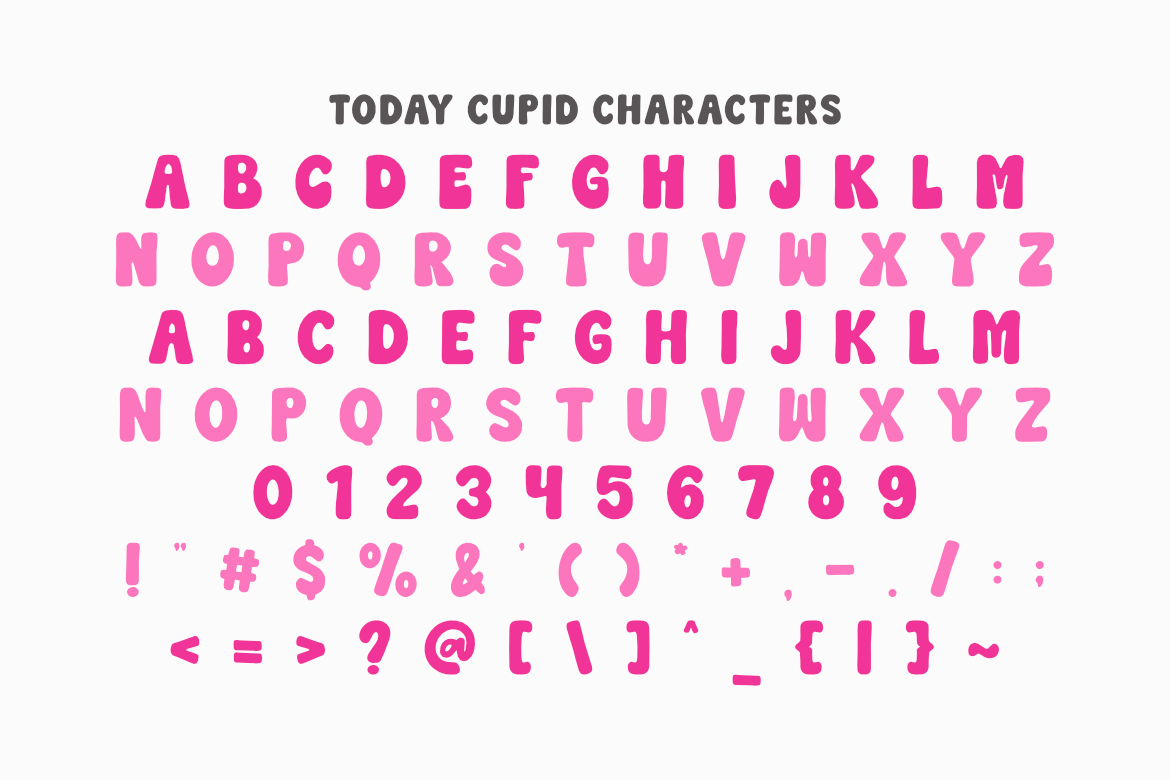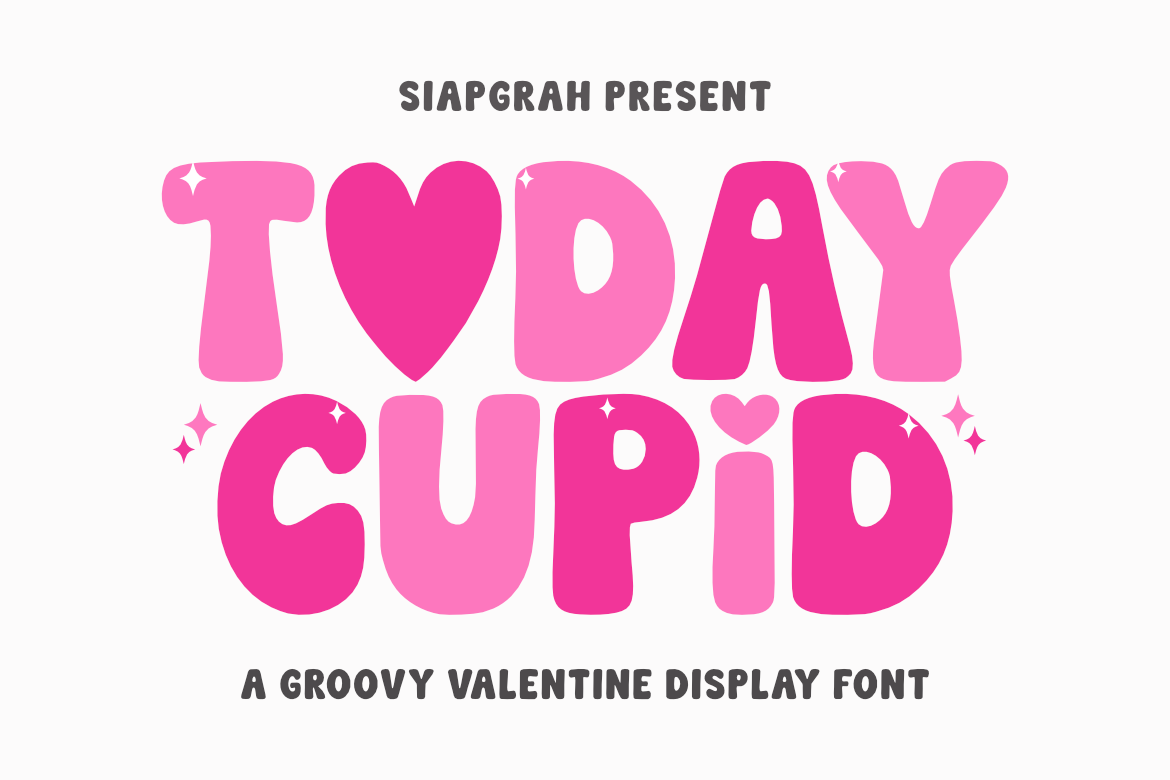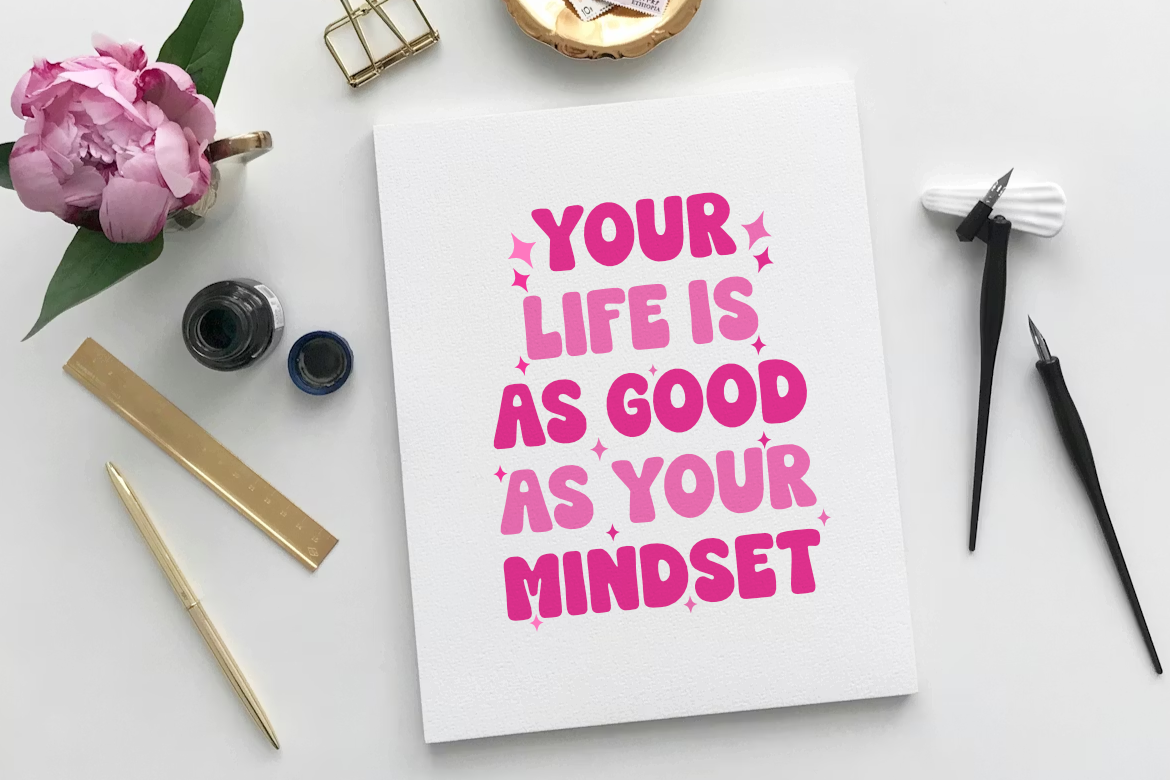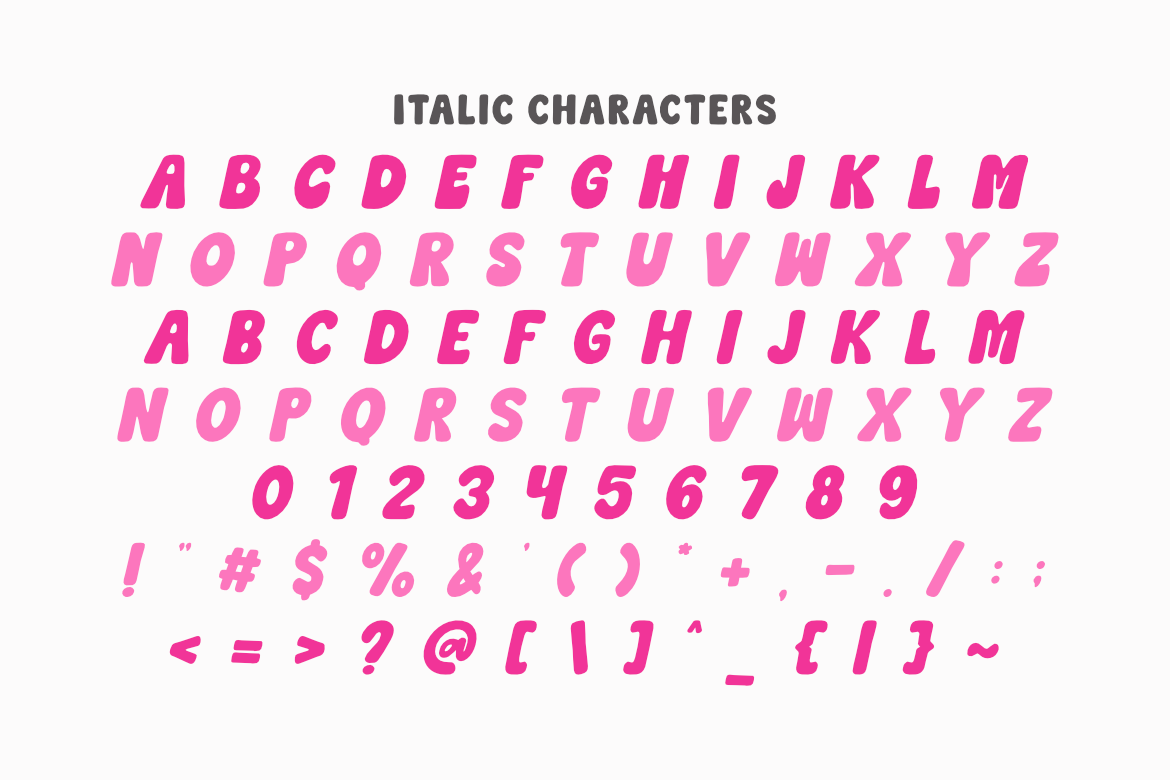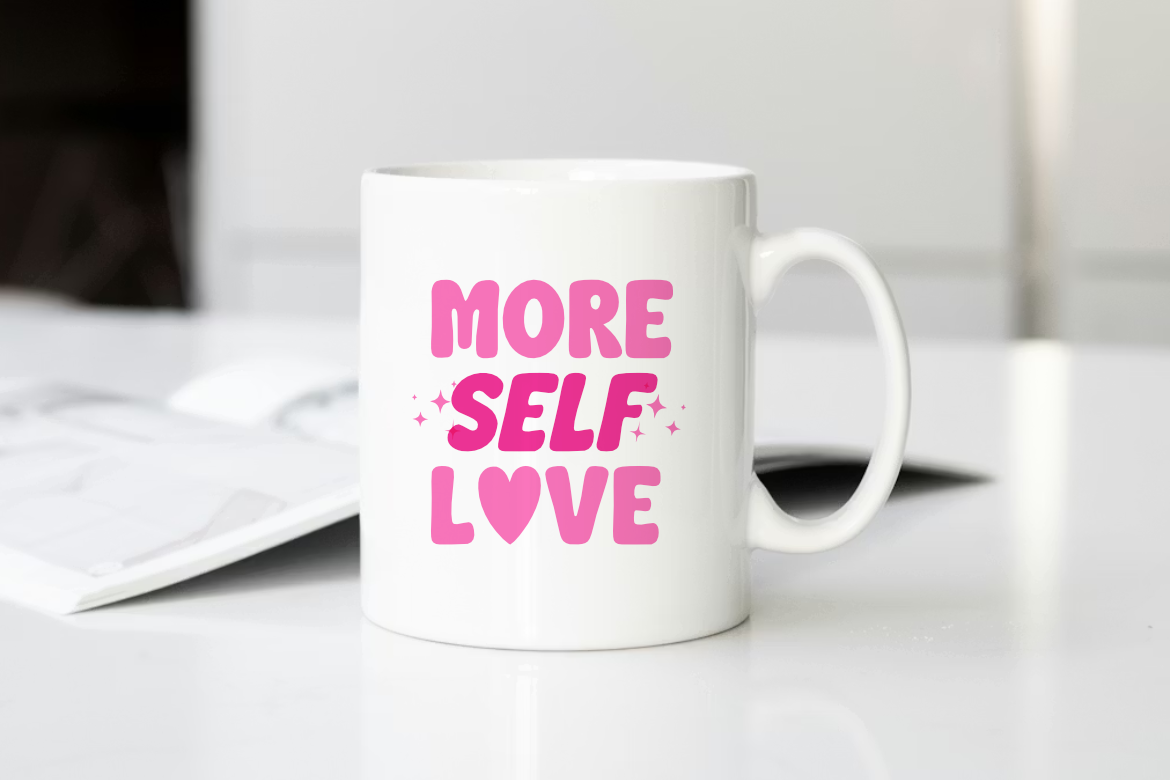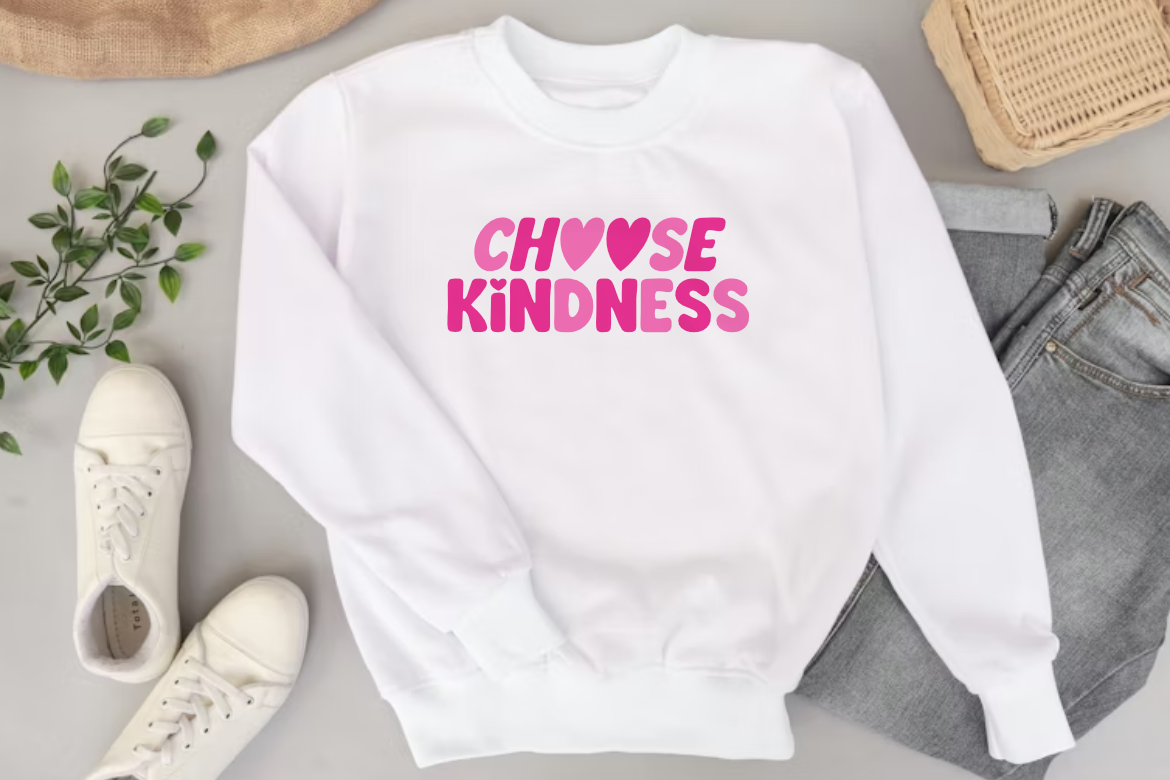
Today Cupid - Groovy Valentine Font for Cricut and Sublimation
Bring your ideas to life with Today Cupid, a charming and cute groovy display font that exudes playfulness! Its soft curves and bold appearance are perfect for creating eye-catching headlines, posters, social media graphics, and branding. Add a dreamy touch to your designs with this delightful font that’s both fun and versatile.